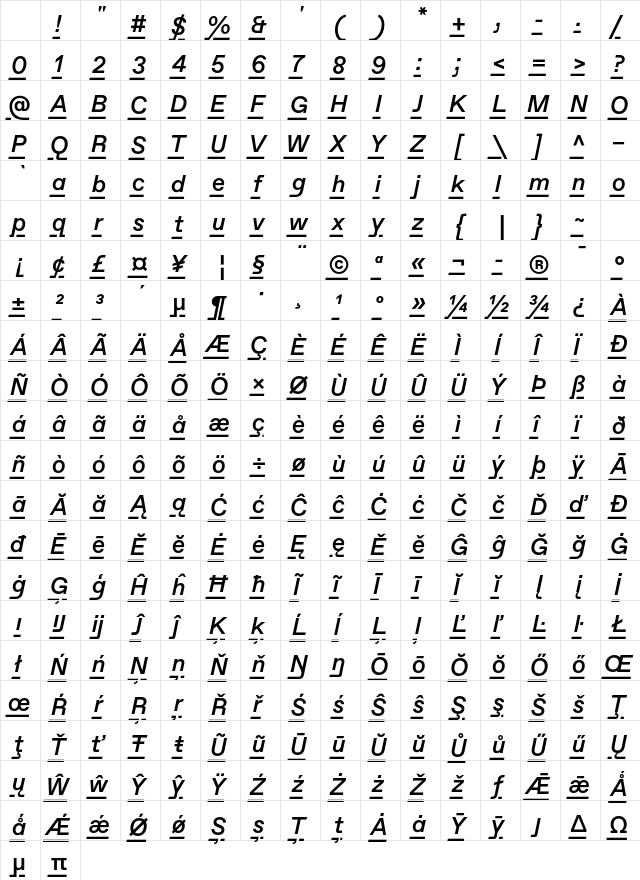
Complete Favorit Lining Std Med Italic glyph index. Displaying only characters natively supported by Favorit Lining Std Med Italic font.
Favorit Lining Std Med is a composed and adaptable typeface that performs quietly and consistently across a wide range of design contexts. The slanted form adds forward momentum and visual energy.
Pro Tip: Use Favorit Lining Std Med for emphasis, pull quotes, and subheadings where its slanted energy can add rhythm to the layout.